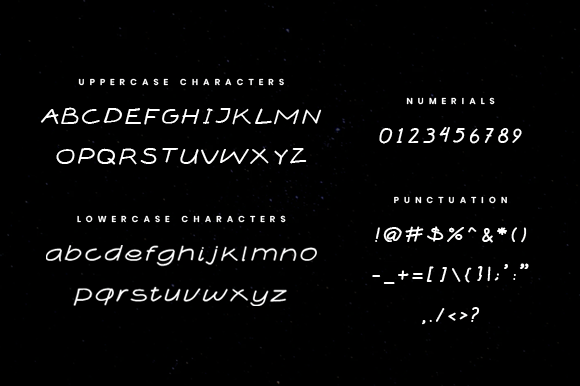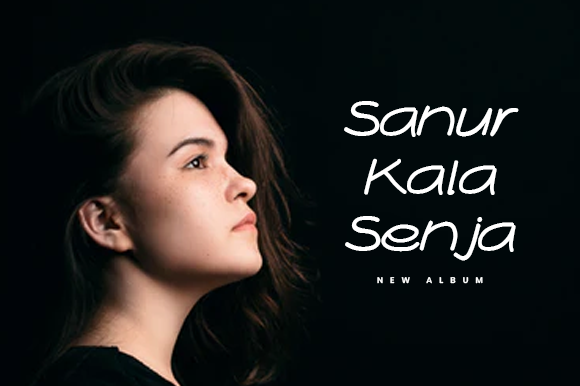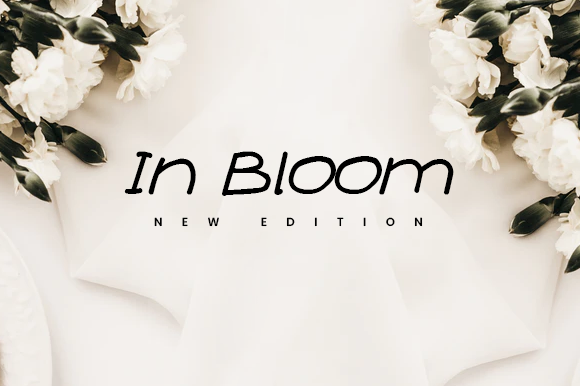
Unleashing Creativity with Boxi Marker Font
Who hasn’t had one of those magical moments where a spark of creativity strikes, and you can’t wait to put it into action? For designers, these moments are the driving force behind creating something truly special. And that’s exactly what Boxi Marker Font is all about – capturing love and dedication in every letter, making it a perfect canvas for your artistic expression.
Boxi Marker Font is a delightful display font that’s designed to add a touch of warmth and personality to your designs. Whether you’re working on a branding project, a digital illustration, or a web design, this font is sure to bring a smile to your face and your audience’s eyes. With its playful and sweet aesthetic, Boxi Marker Font is a valuable addition to any designer’s toolkit.
Boxi Marker Font Key Features
- Character Set: The font features a wide range of characters, including uppercase and lowercase letters, numbers, punctuation, and a variety of markers and symbols.
- Unique Characteristics: Boxi Marker Font is designed with a distinctive, hand-drawn aesthetic, making it perfect for creative and artistic projects.
- Font Style: Boxi Marker Font offers a single font style, but with multiple weights, from Light to Bold, allowing for a range of design possibilities.
- Legibility and Readability: The font is designed to be highly legible, even at small sizes, making it suitable for a wide range of applications, from body text to headings.
Boxi Marker Font Review
Overall, I’m quite impressed with the Boxi Marker Font. It’s a stylish and modern sans-serif font that’s perfect for creating a bold and eye-catching visual identity.
- Unique and modern design: The Boxi Marker Font has a distinctive look that sets it apart from more traditional sans-serif fonts.
- High-quality typography: The font is well-designed and legible, making it suitable for a wide range of applications, from body text to headings.
- Support for multiple languages: The font includes a broad range of languages, making it a great choice for international projects.
- Limited expressiveness: While the font is modern and stylish, it may lack the expressiveness and nuance of more traditional serif fonts.
- May not be suitable for very long blocks of text: The font’s unique design may make it less readable when used for extended periods of time.
Overall, I’d say that the Boxi Marker Font is a great choice for designers looking to add some modern flair to their projects. While it may have some limitations, its unique design and high-quality typography make it a solid addition to any font collection.
The Boxi Marker Font is perfect for creating bold, playful graphics and illustrations. Use it to:
- Create eye-catching headings and titles.
- Add personality to your quotes and captions.
- Design bold and playful graphics for social media.
The recommended font size for Boxi Marker Font varies depending on the design application and the intended use of the font. However, as a general guideline, we recommend using font sizes between 14pt and 24pt for body text and larger font sizes for headings and titles.
Q: Does Boxi Marker Font support ligatures?
Yes, the Boxi Marker Font includes ligature support. Ligatures are special combinations of letters that are combined into a single glyph to improve readability and aesthetics. The font includes ligatures for common letter combinations, such as “fi” and “fl”.